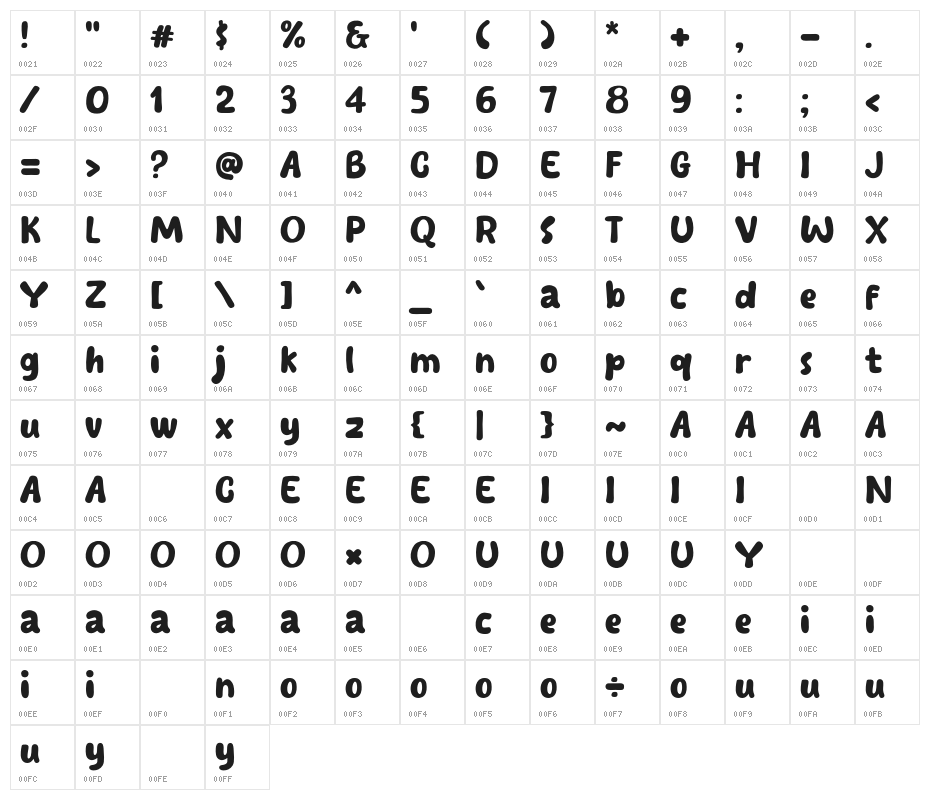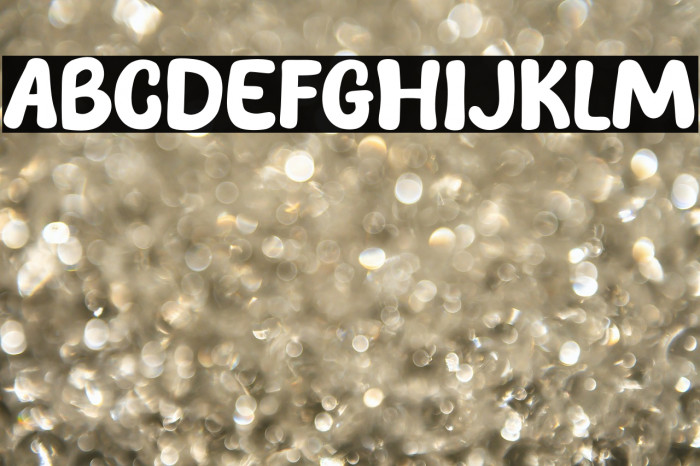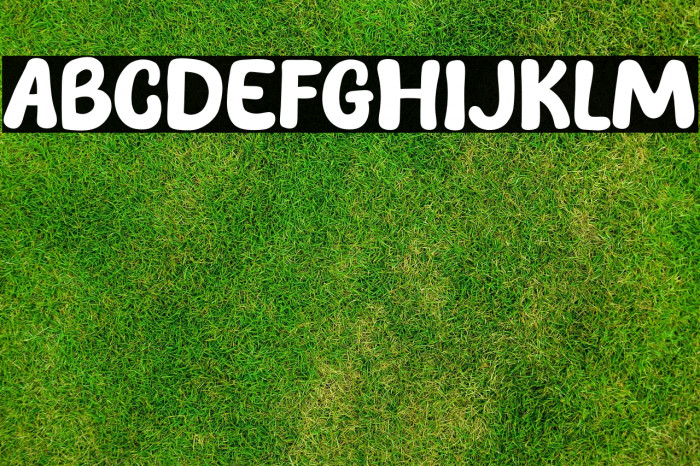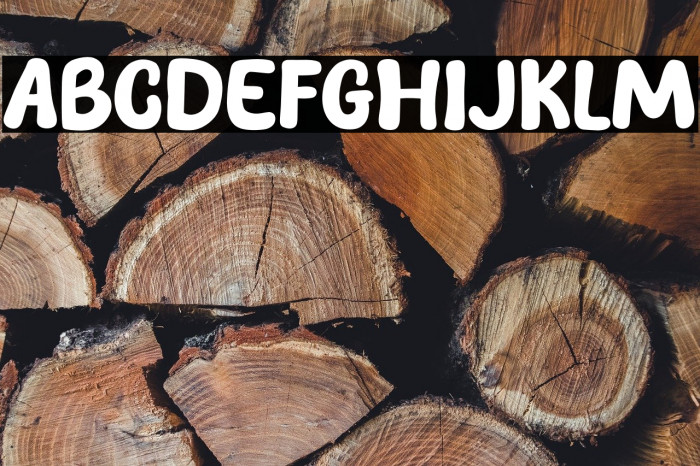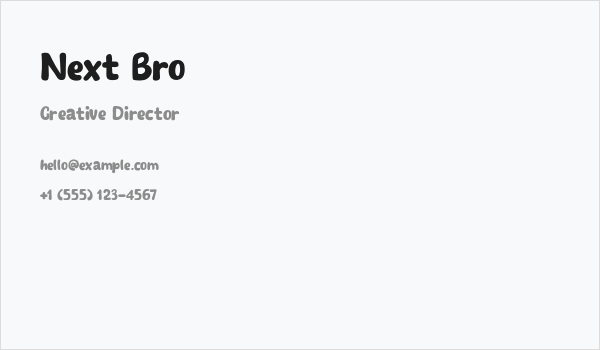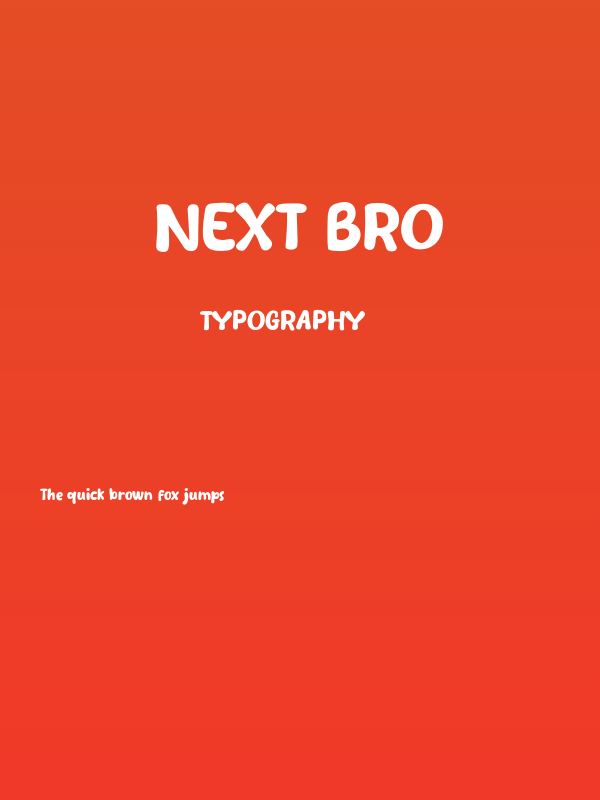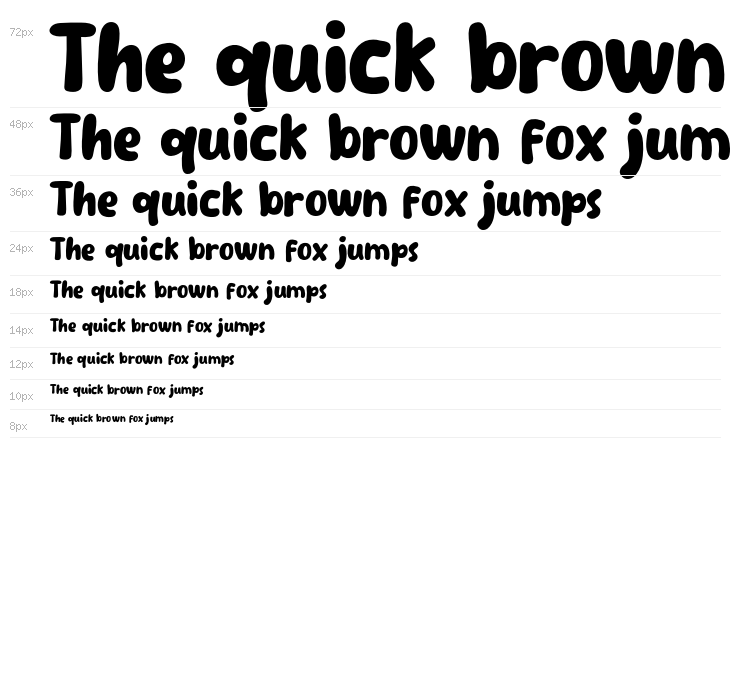
Next Bro Font
| Gesamtstil | Playful |
| Vorgeschlagene Projekte | Ideal for children's books, playful branding, casual posters, and creative social media graphics. |